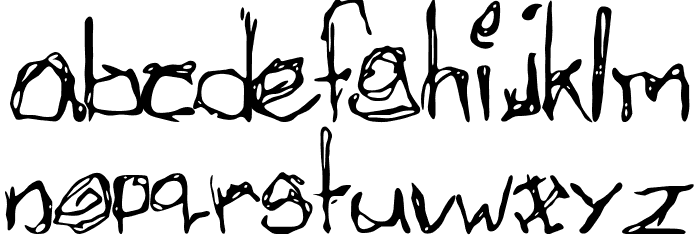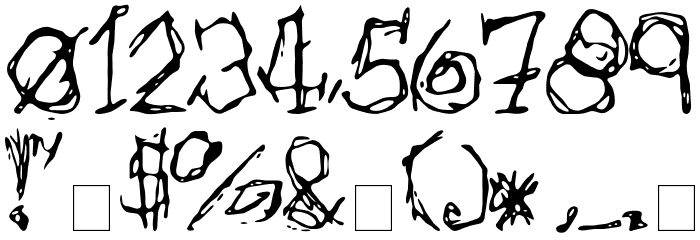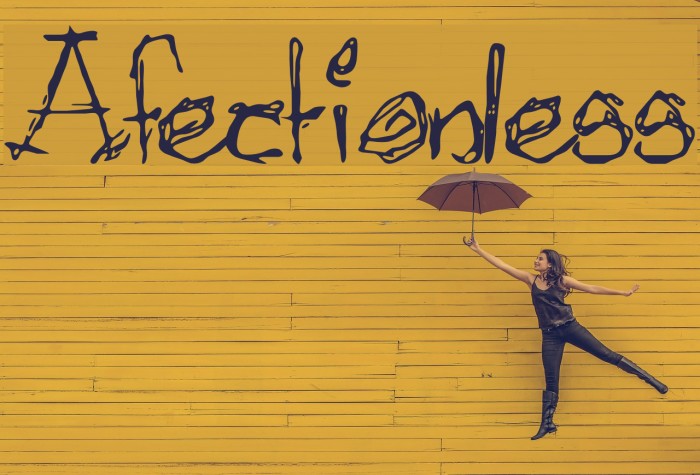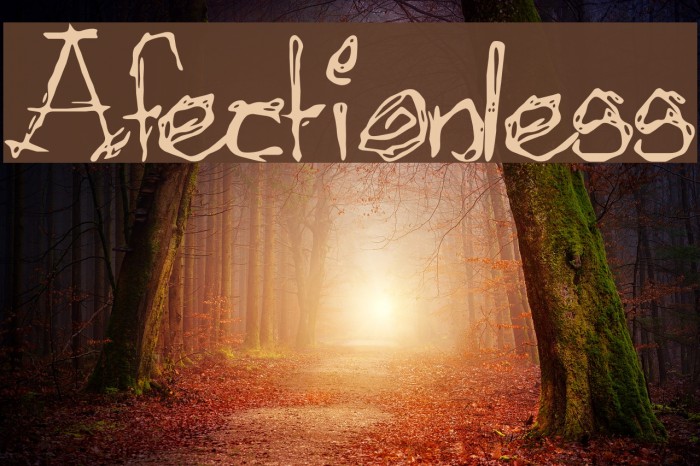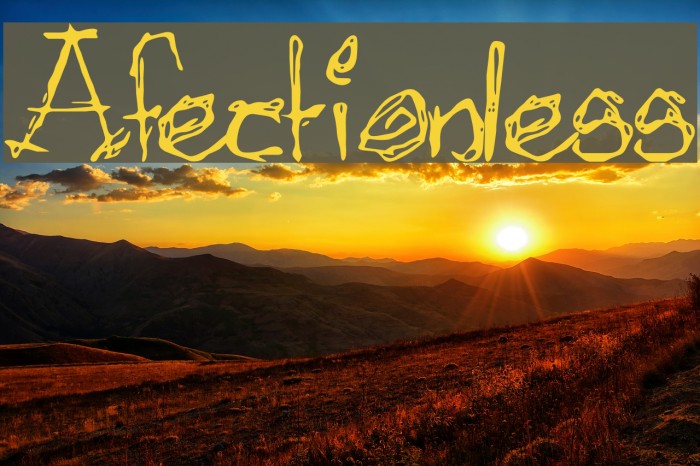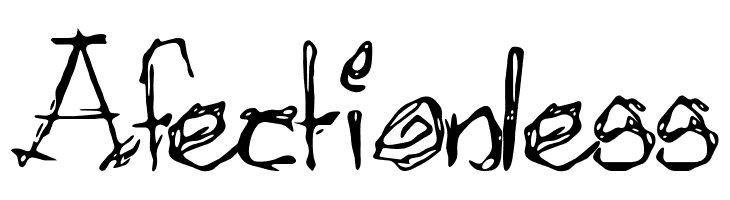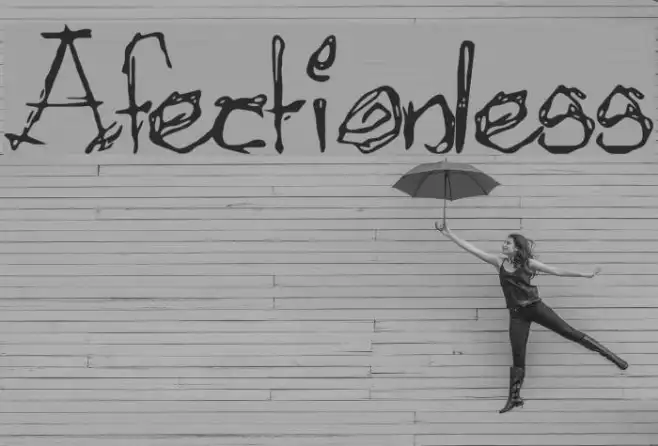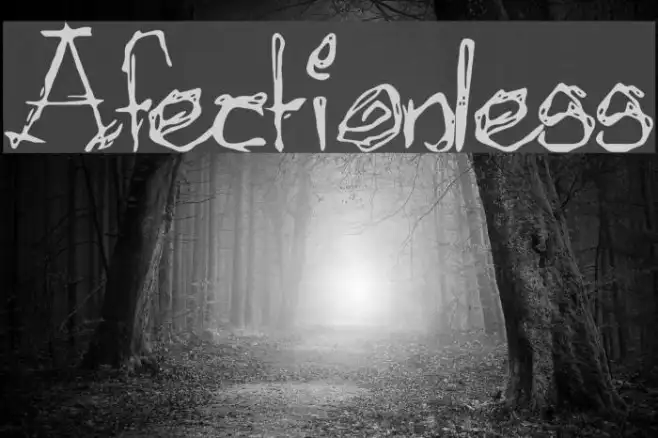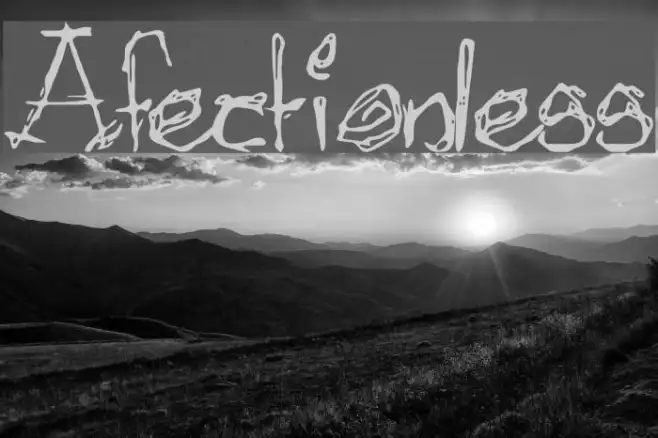
Afectionless Font
This font features a highly decorative and chaotic style, reminiscent of tangled barbed wire or thorny vines. The characters are irregular and jagged, with uneven strokes that give a sense of movement and unpredictability. Each letter is unique, with varying line thicknesses and unexpected curves, creating a sense of tension and edginess. The uppercase and lowercase letters maintain this wild aesthetic, while the numbers and special characters continue the theme with their own distinctive flair. This font is designed to capture attention with its bold and unconventional appearance.
A chaotic, thorny, and highly decorative font with irregular, jagged strokes.
- Proposed Projects: Ideal for horror-themed posters, edgy album covers, or any project requiring a dramatic and unsettling visual impact.